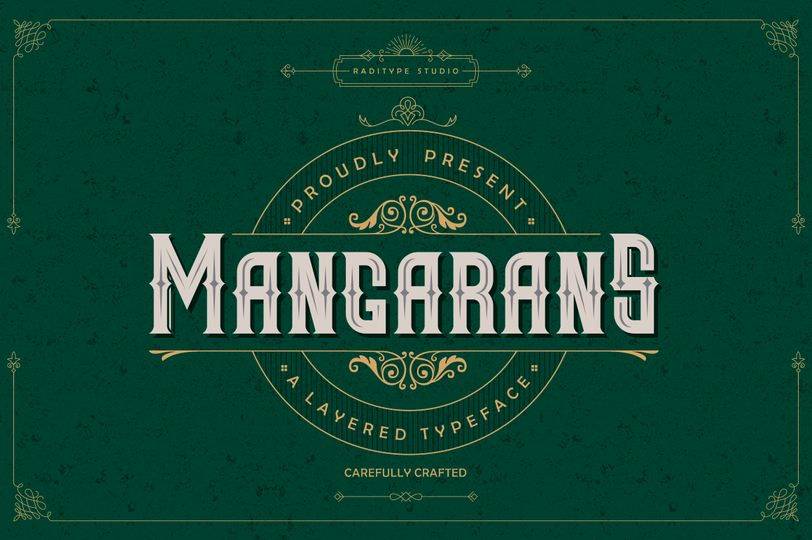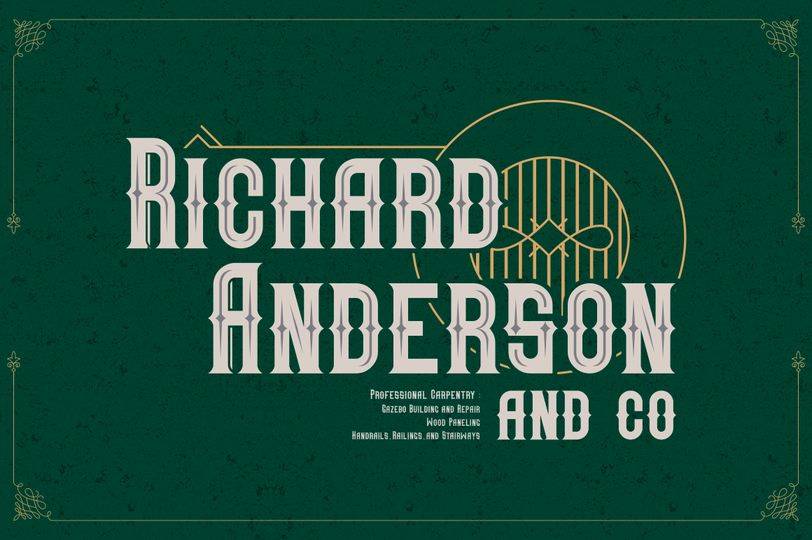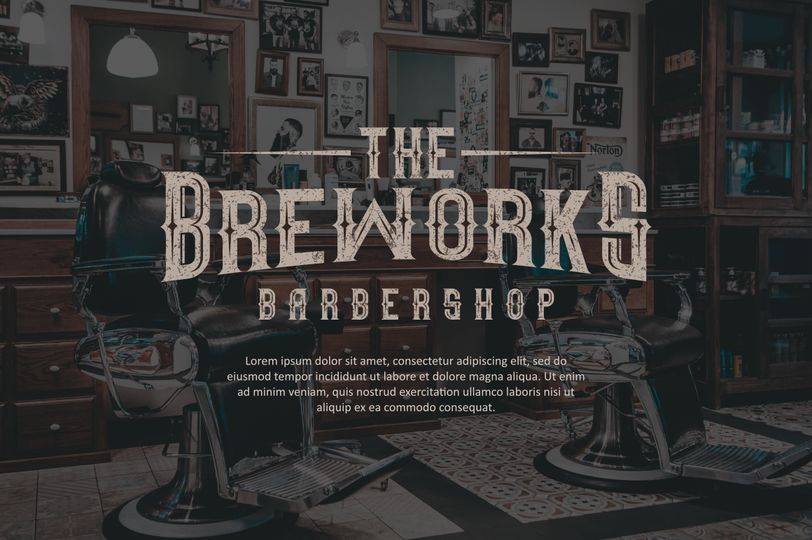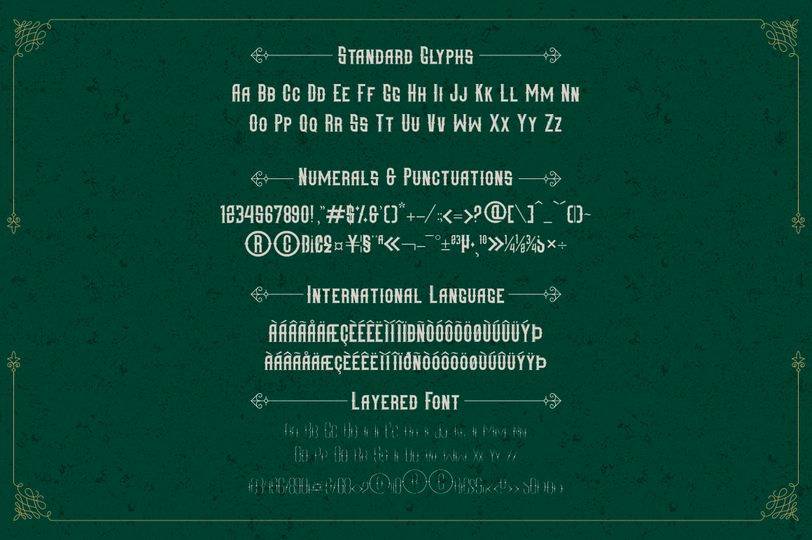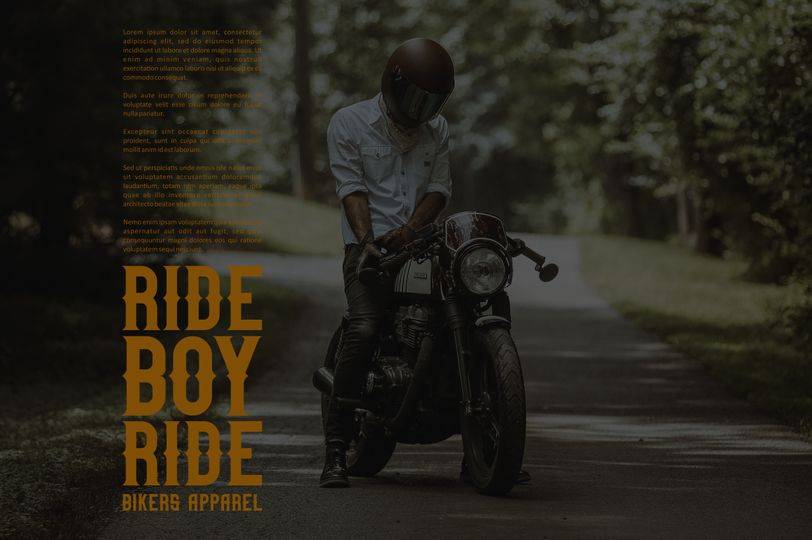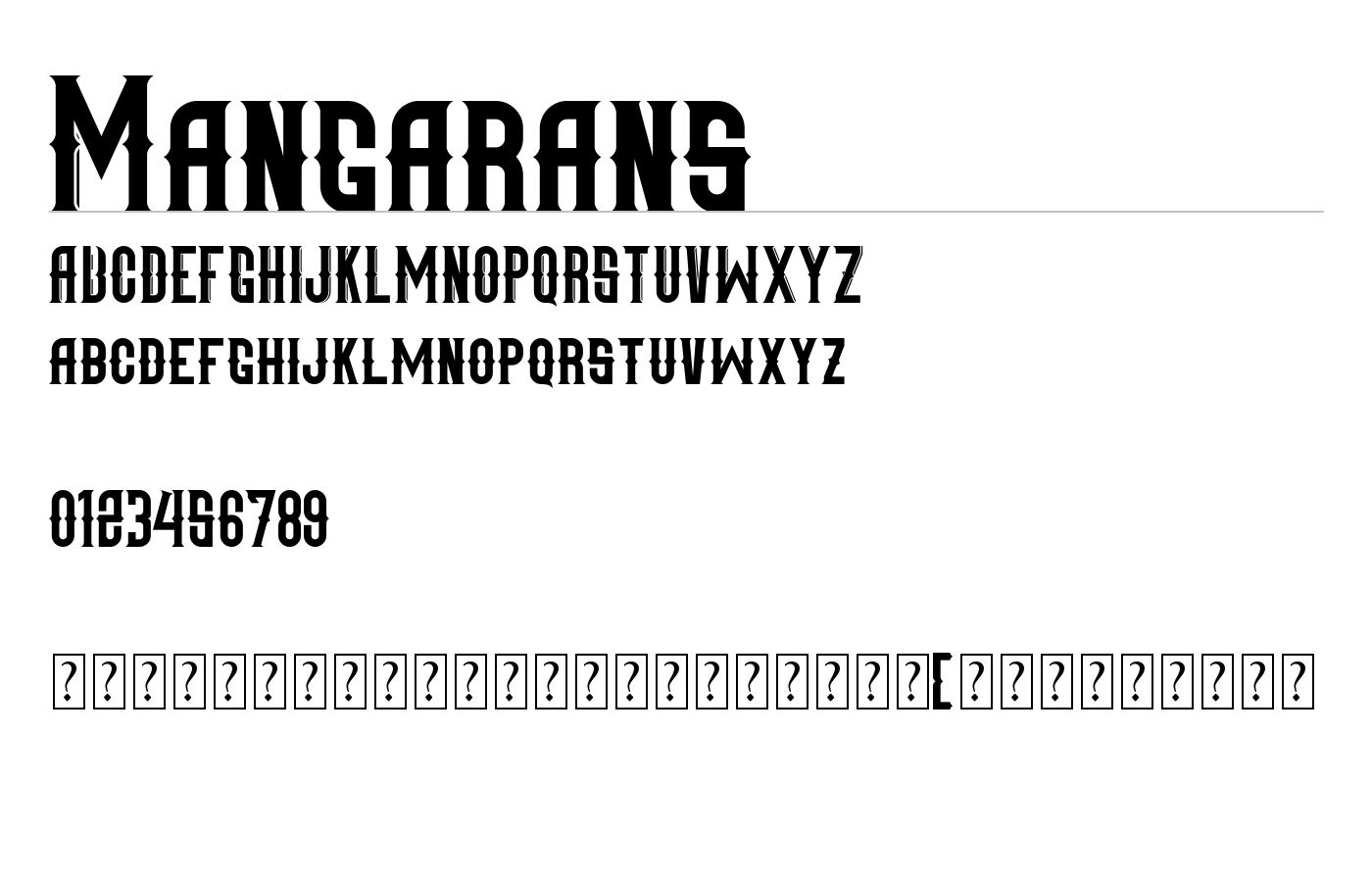
Mangarans is a bold, condensed serif font with a strong vintage and western-inspired character. Its high contrast between thick and thin strokes, combined with sharp, bracketed serifs and decorative details, gives it a striking, dramatic appearance ideal for headlines, logos, and packaging that seek to convey a rugged yet stylish personality. This font works well in designs aiming for a bold statement with a classic, retro vibe.
Mangarans Font
About Mangarans Font